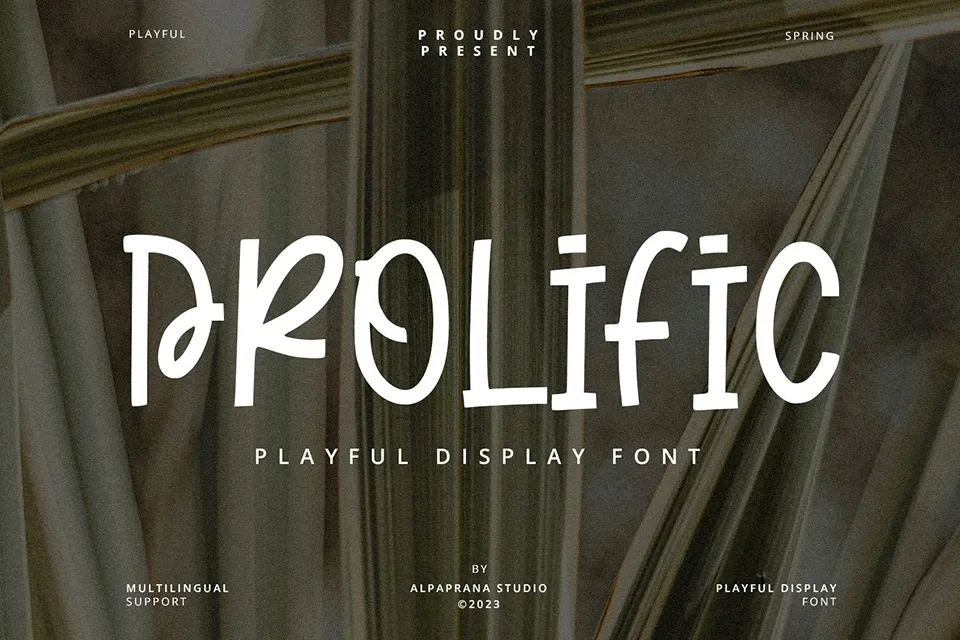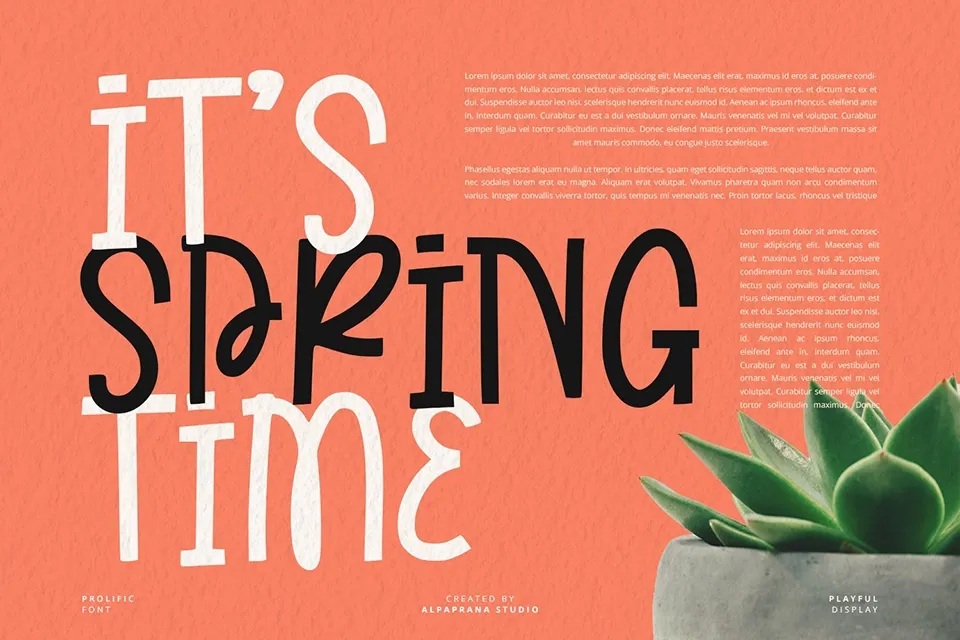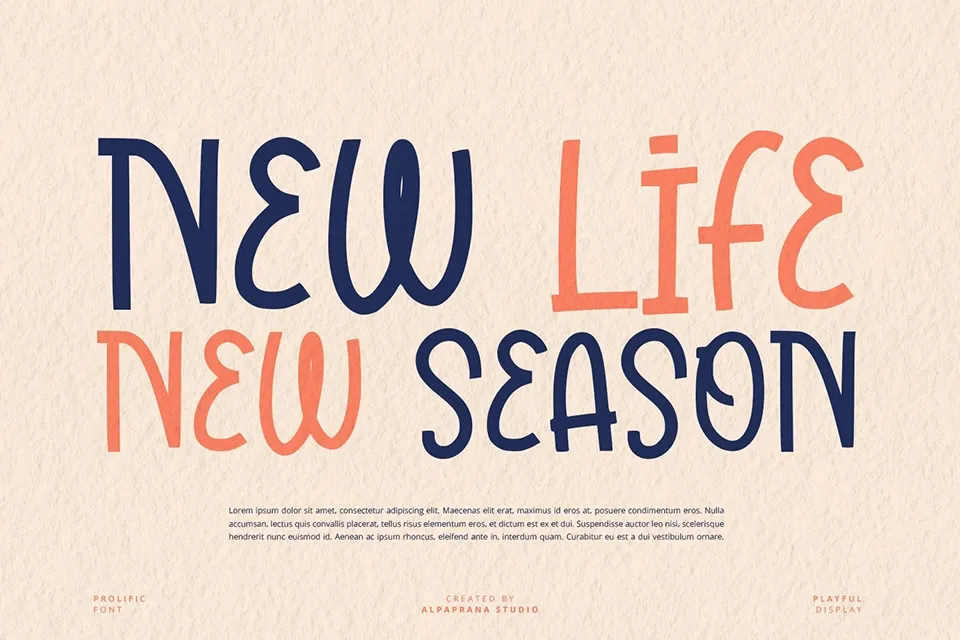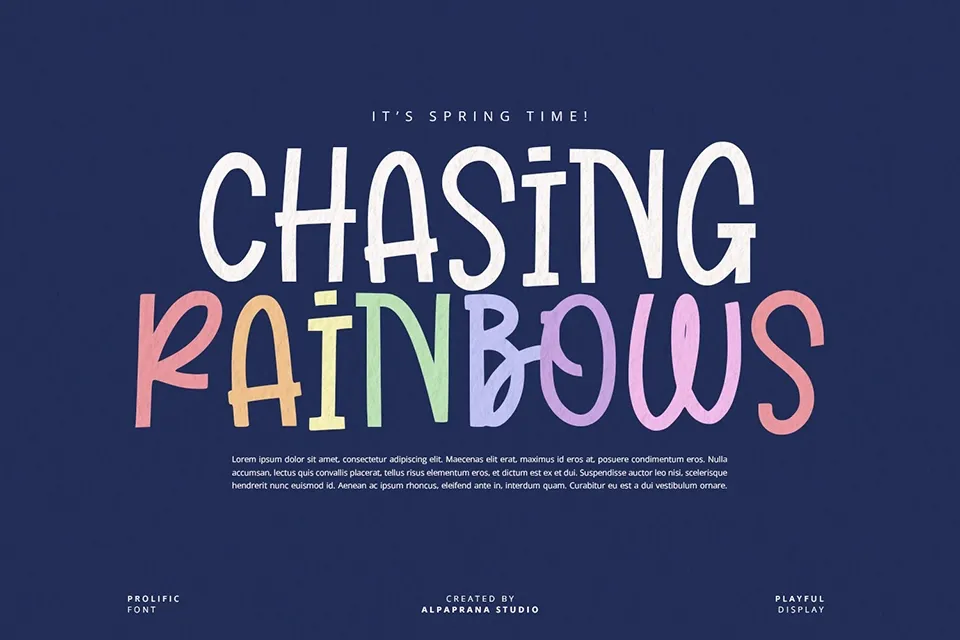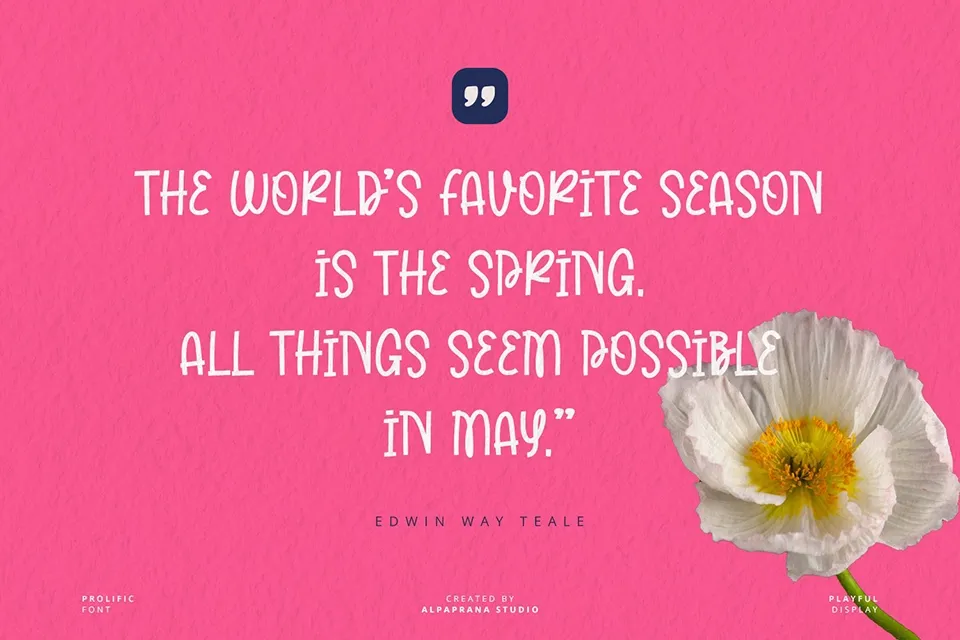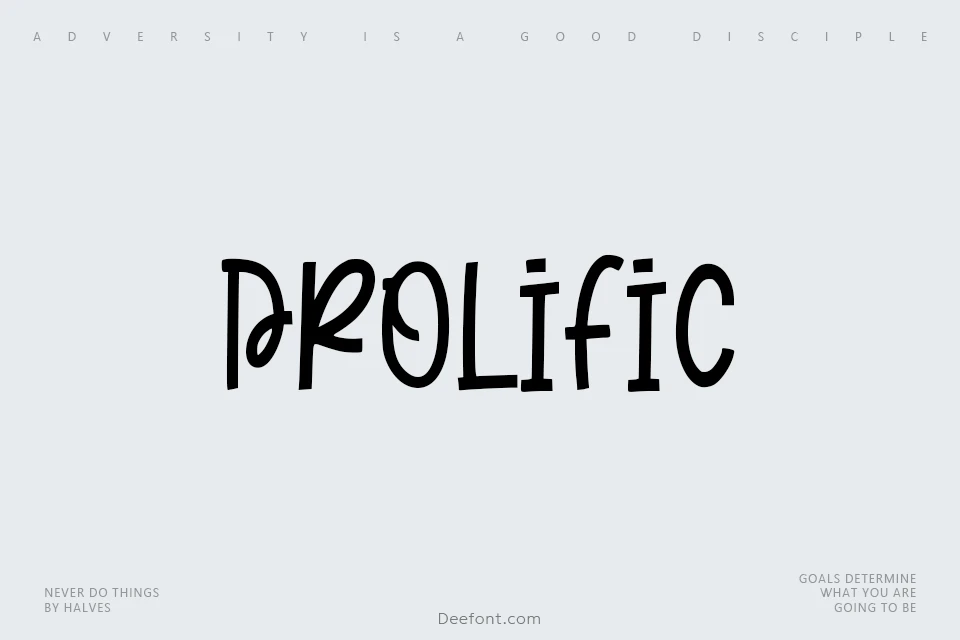
Prolific Font
Prolific, created by Alpapranā Studio, is described as a playful display font. It features rounded, monoline letterforms with slightly irregular shapes, giving it a friendly, approachable, and handwritten appearance. The style is informal yet clear, designed to be eye-catching and engaging. Its playful character makes it suitable for children’s products, fun branding, casual event invitations, social media graphics, headlines, and any design project needing a touch of lightheartedness and charm. The font also offers multilingual support.